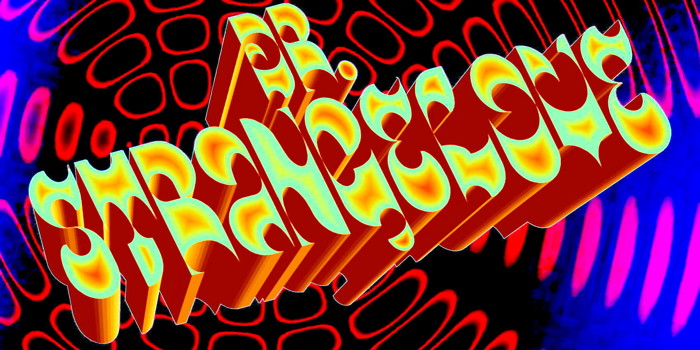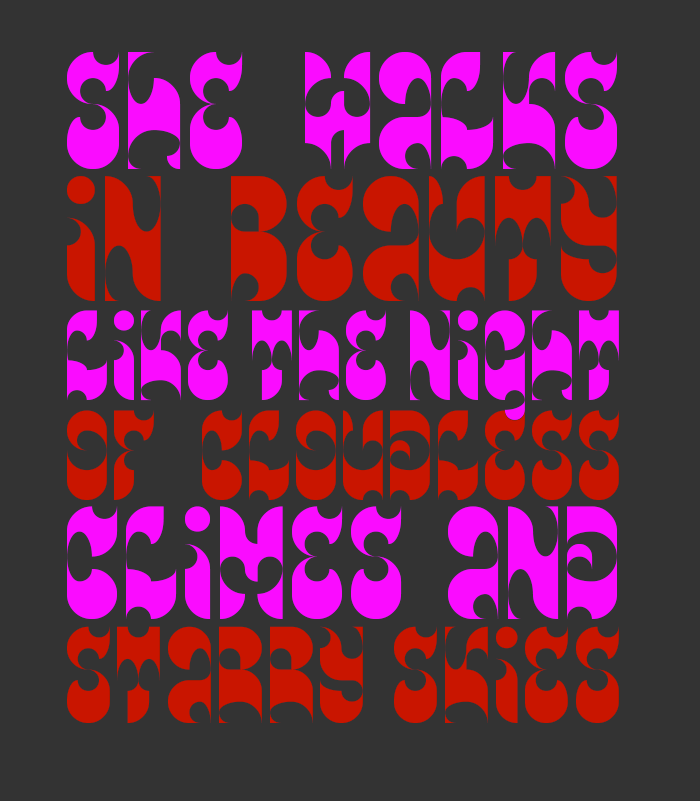
This is fantastic. A very clever use of so many curves. Truly unique. It's got a very nice 1970's flower power feel with a bit of Alladin, or hte Arabian Knights mixed in.
I'm not feeling your samples though, to me they actually take away from the font, rather than promote it's possible uses.
So many beautiful shapes. My favourites being E,O,Q,S.
@djnippa: Wow! Thank you very much for your encouraging words, master! I've made another sample, a totally different concept, hope you like. (My samples are another of my stuff I should improve on FS, I know. Thanks again for your patience).
djnippa is right: these crazy curves are an interesting mix of different styles: something like summer of love meets 1001 nights. They succesfully blend together into a font that tries to visually represent an element of love. So many different characters with so many different qualities and yet they work really well together. I Iove that last sample.
Very funky and swashy. The new sample is better in that it doesn't overwhelm the type. Your uppercase letterforms give me ideas to complement the lowercase of my G1 paloma font since there is a similar flow.
This is a brilliantly psychedelic design. There's no standard shape for each letter, yet each fits perfectly in its place. The swirl in the O reminds me of ice cream :) Congratulations on the win!
Made with the pieces of a broken heart.
I'm with nippa, good Job.
I like Lord Byron' poetry, and I think this was a very cool election here.
BTW, I add the entire poem and its translation to spanish.
Strange, but pyschedelic!